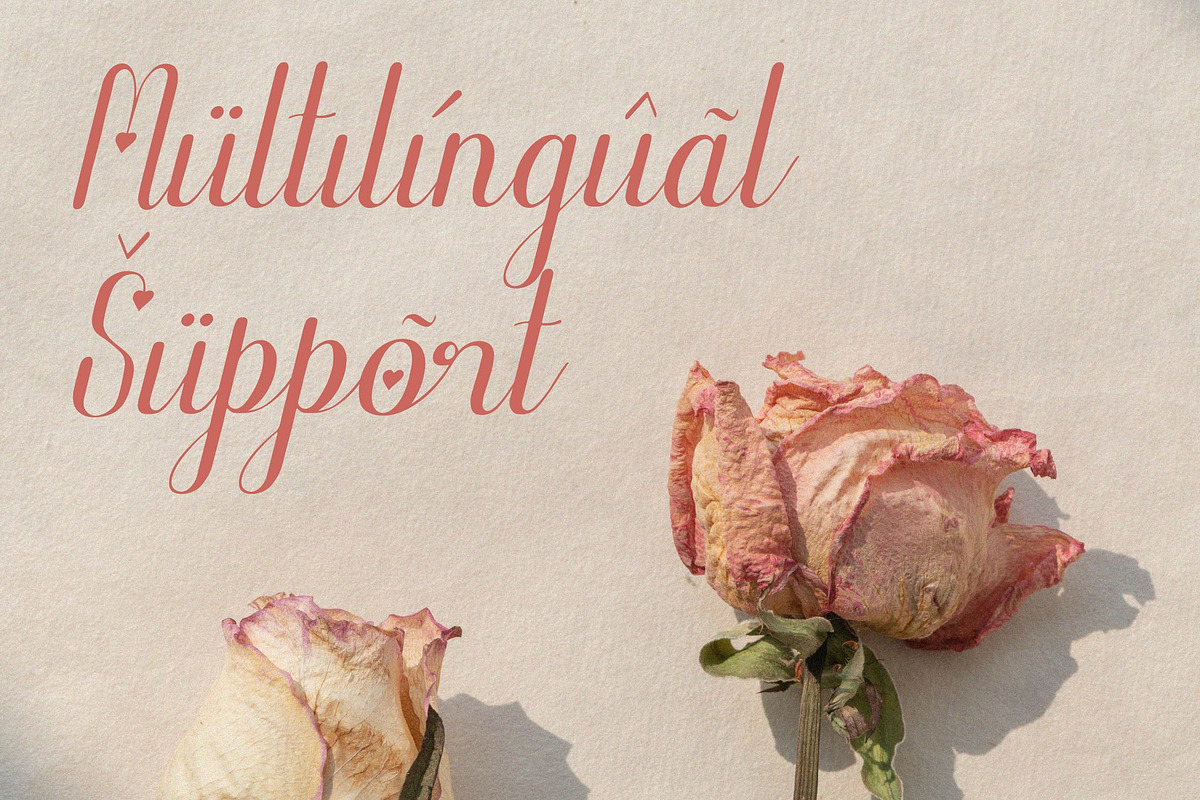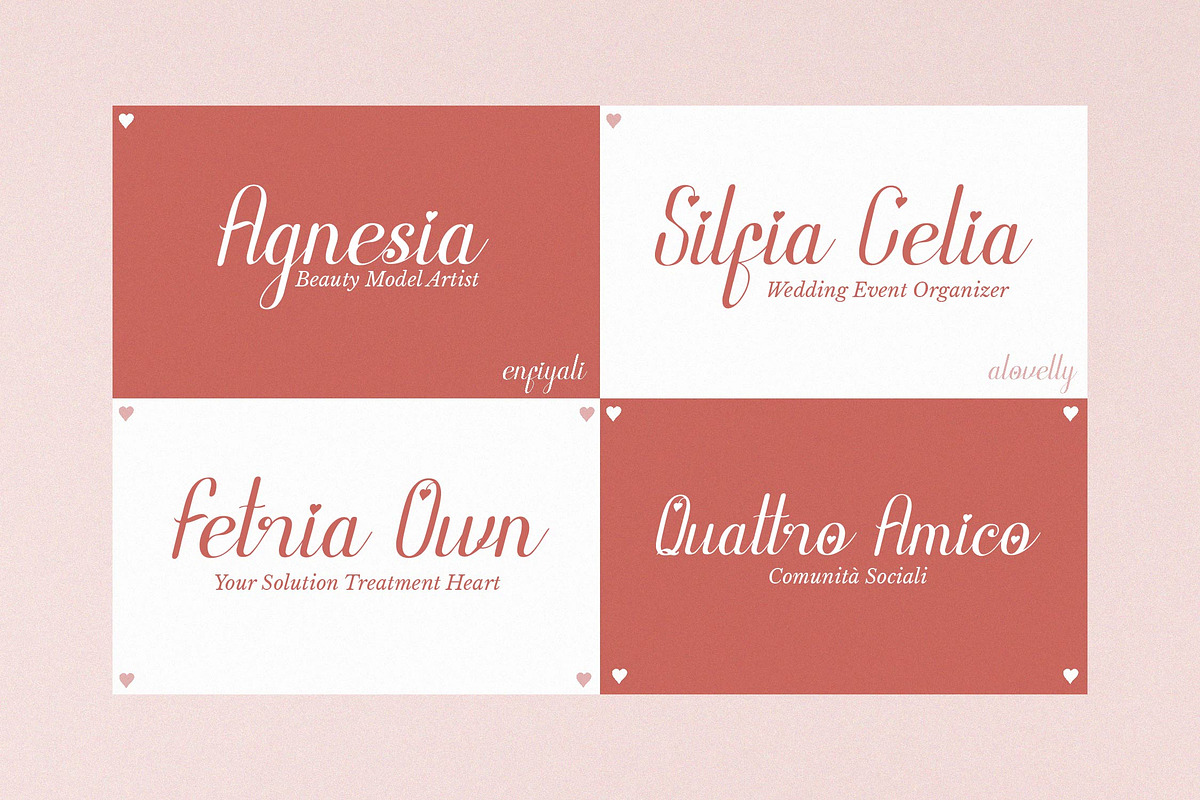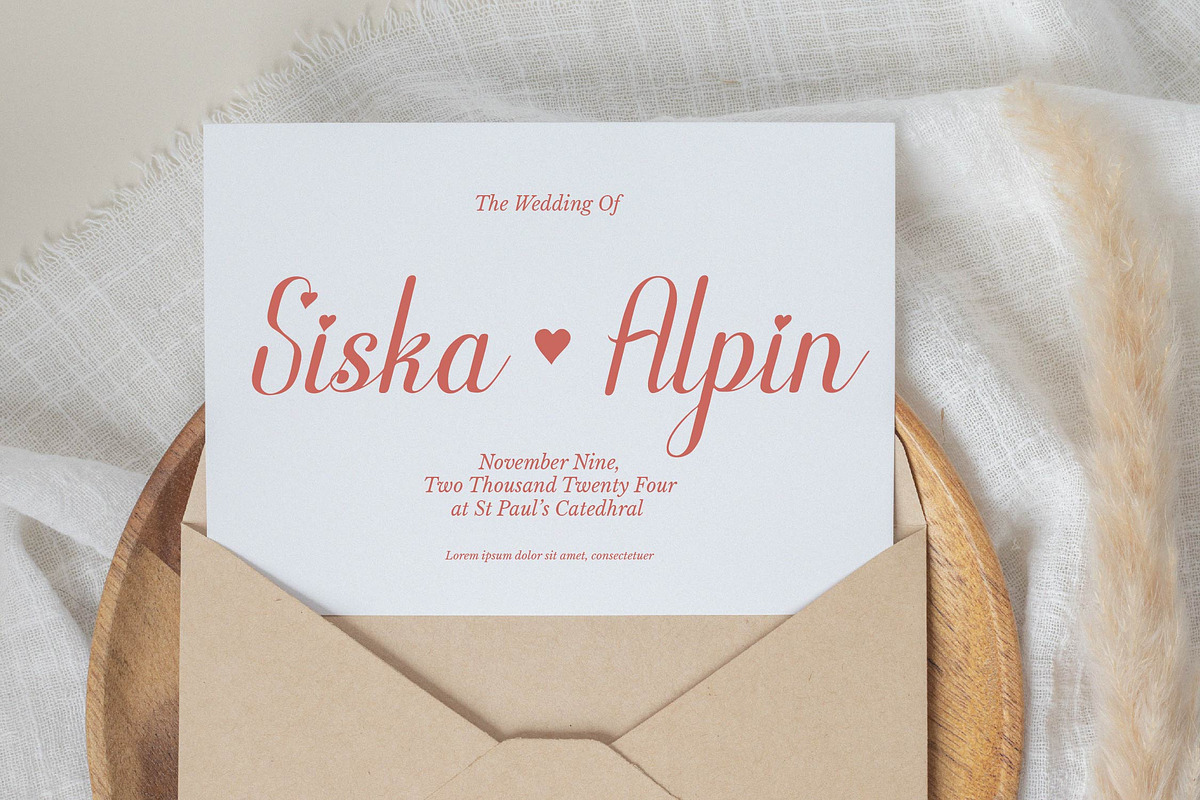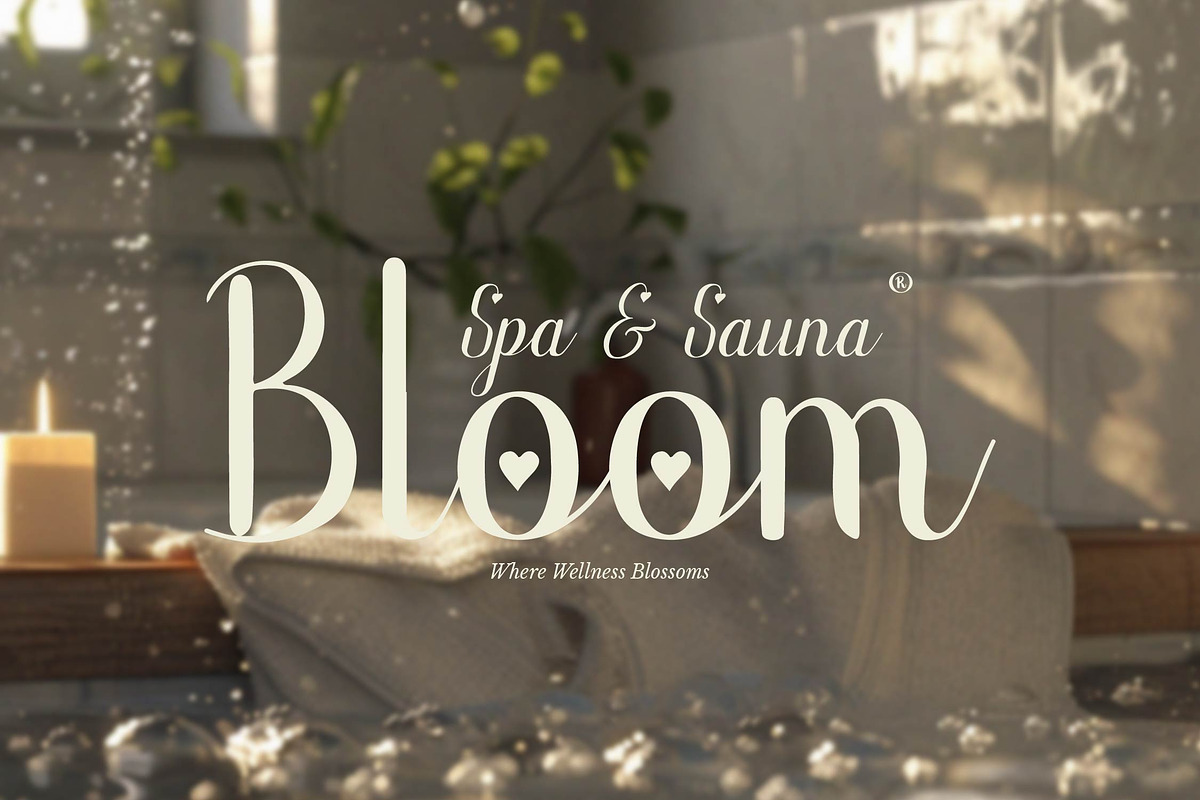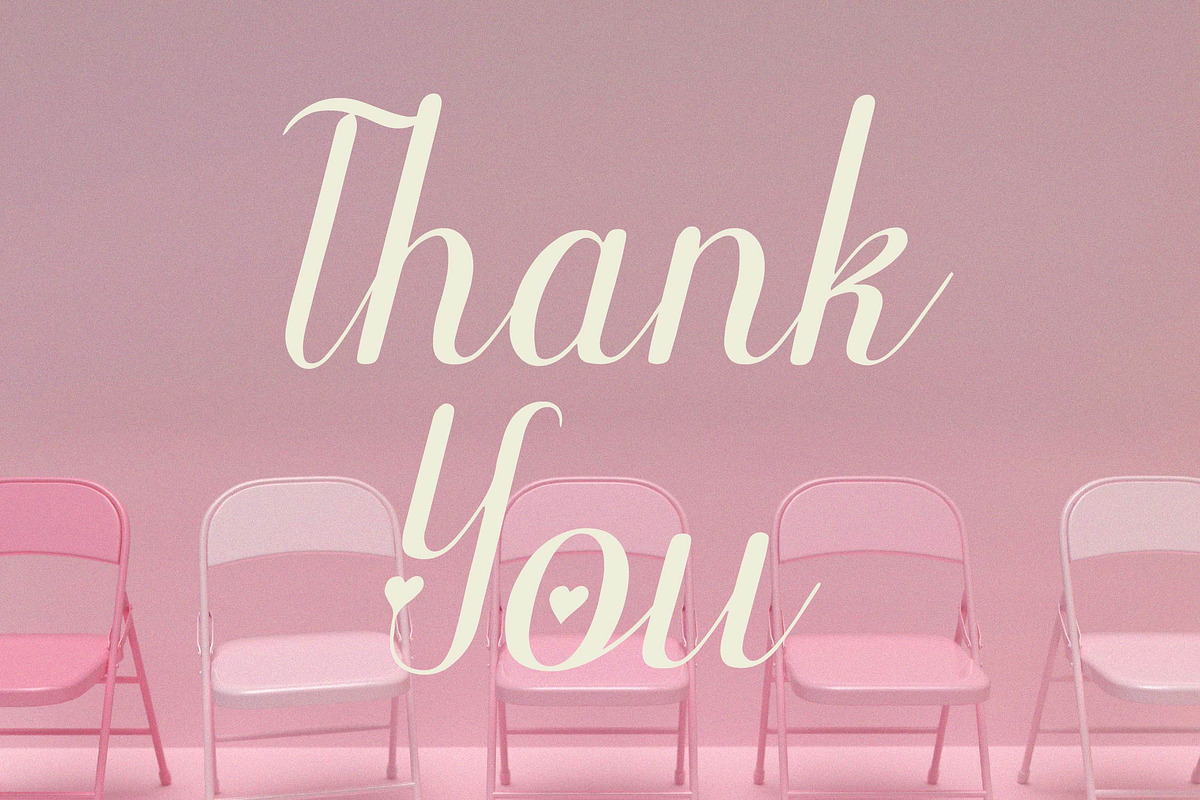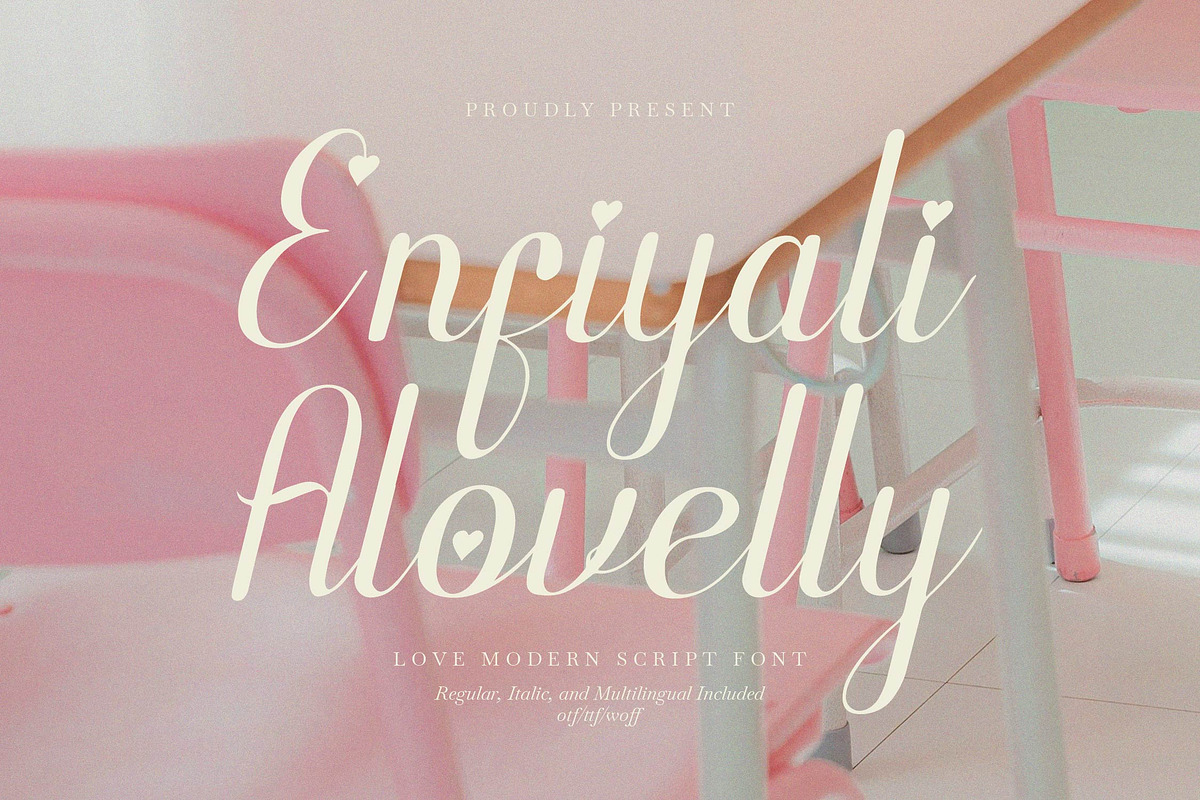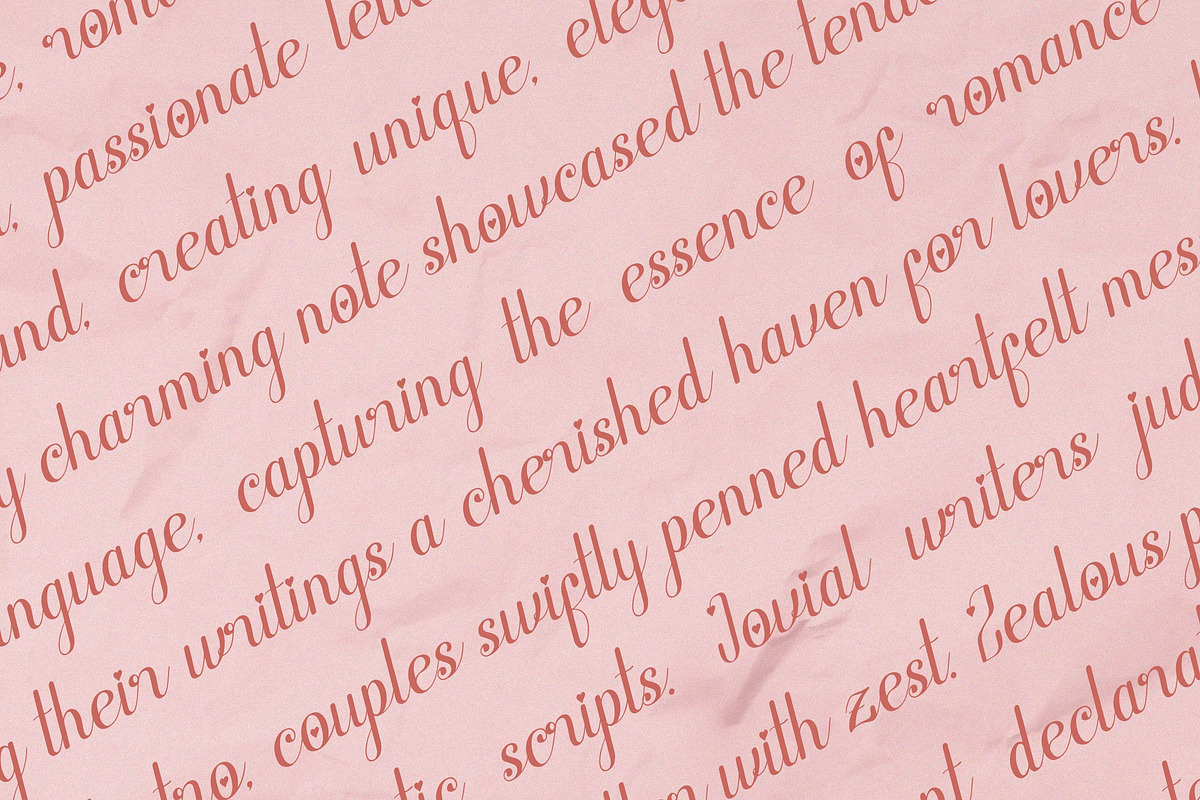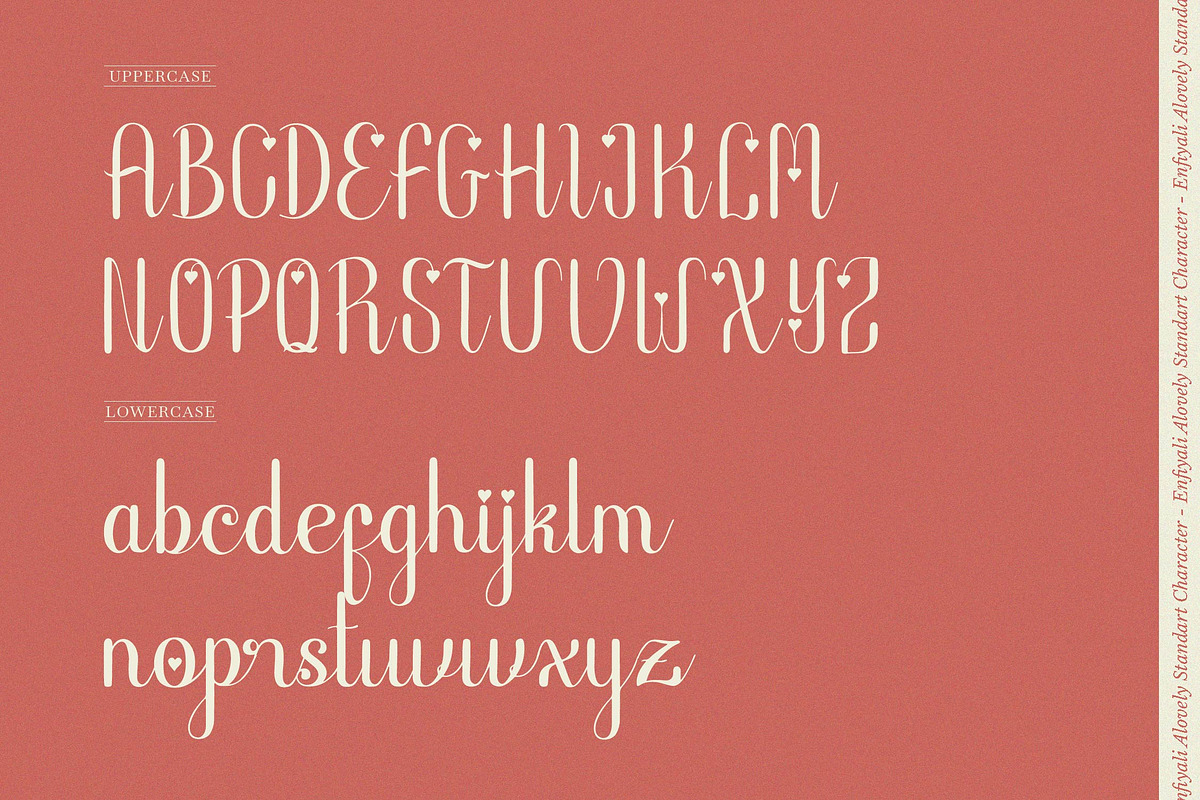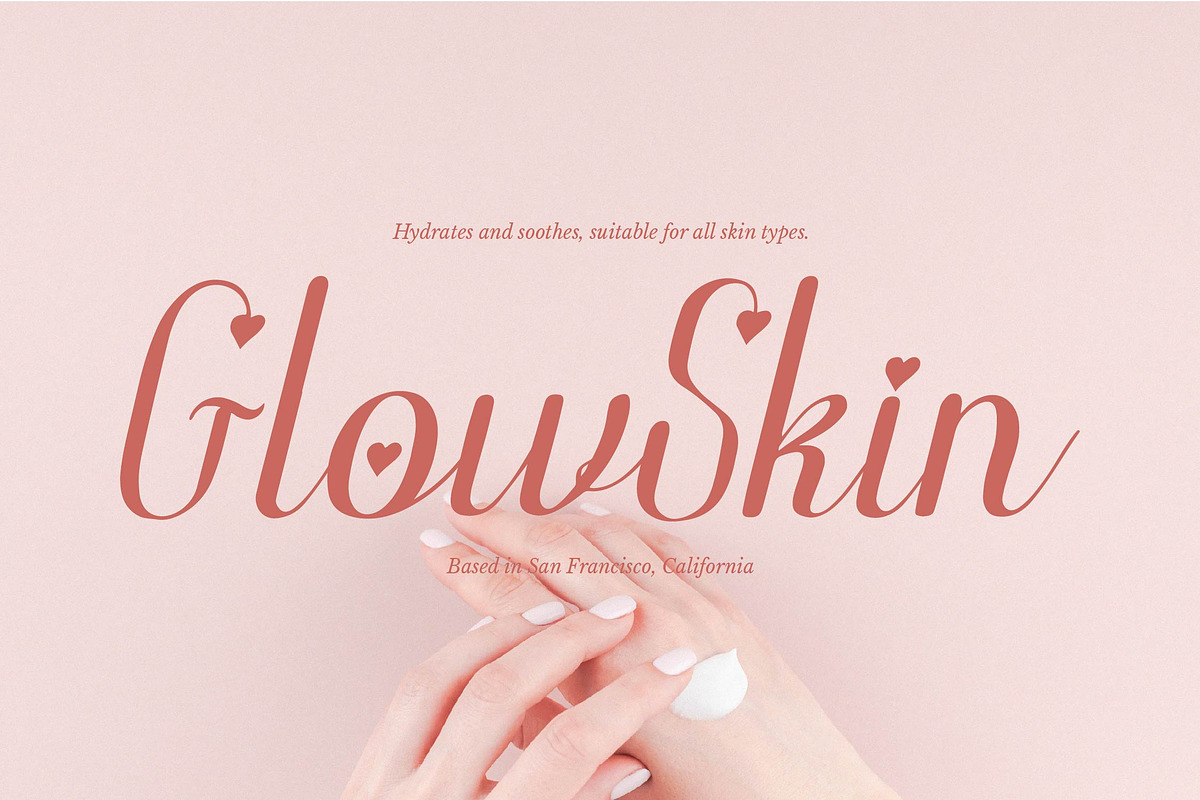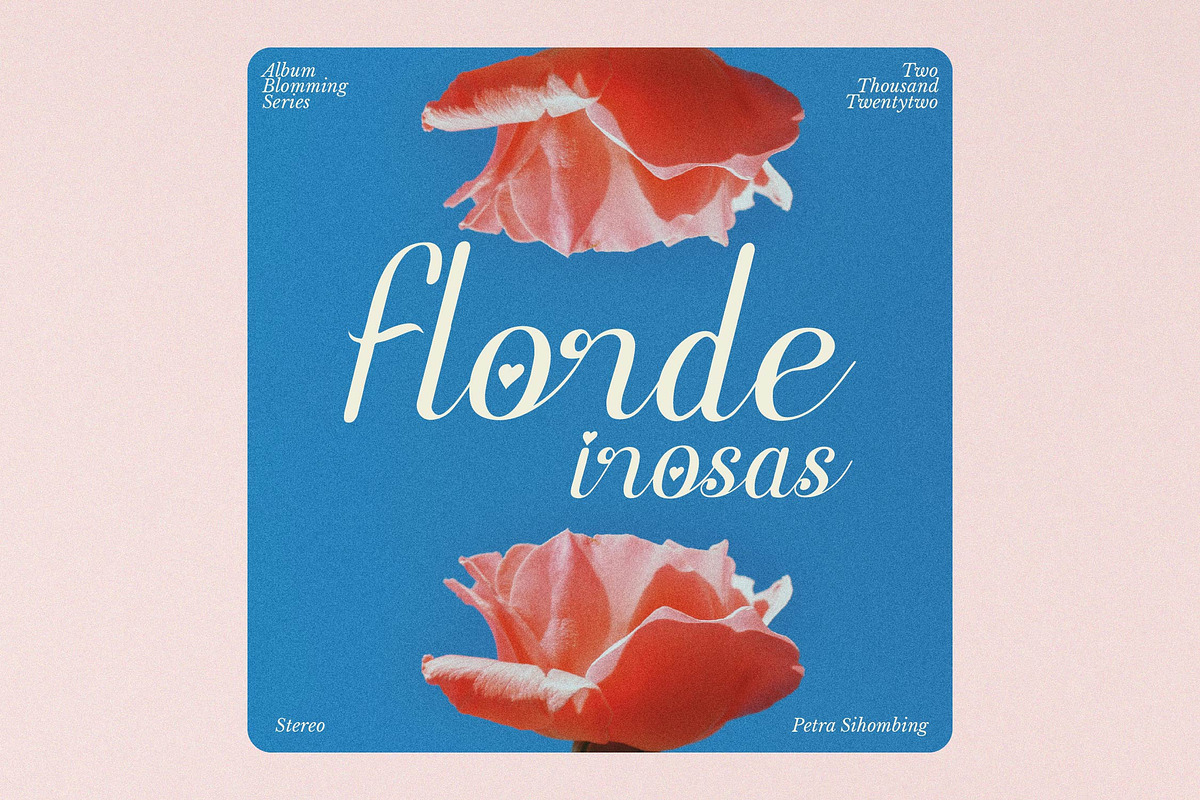
Enfiyali Alovelly Love Modern Script
Enfiyali Alovelly | Love Modern Script, from Denustudios, suitable for any projects such as: logos, branding projects, homeware designs, product packaging, mugs, quotes, posters, shopping bags, t-shirts, book covers, name card, invitation cards, greeting cards, label, photography, watermark, special events, and all your other lovely projects that need a Love Modern Script taste. =============================================================== What’s Included : • Enfiyali Alovelly (OTF/TTF/WOFF) • Web Font (Only WOFF format) • Standard glyphs • Alternate and Ligature • Works on PC & Mac • Simple installations • Accessible in the Adobe Illustrator, Adobe Photoshop, Adobe InDesign, even work on Microsoft Word and Other Software. • PUA Encoded Characters – Fully accessible without additional design software. • Fonts include multilingual support Hope you enjoy with our font!